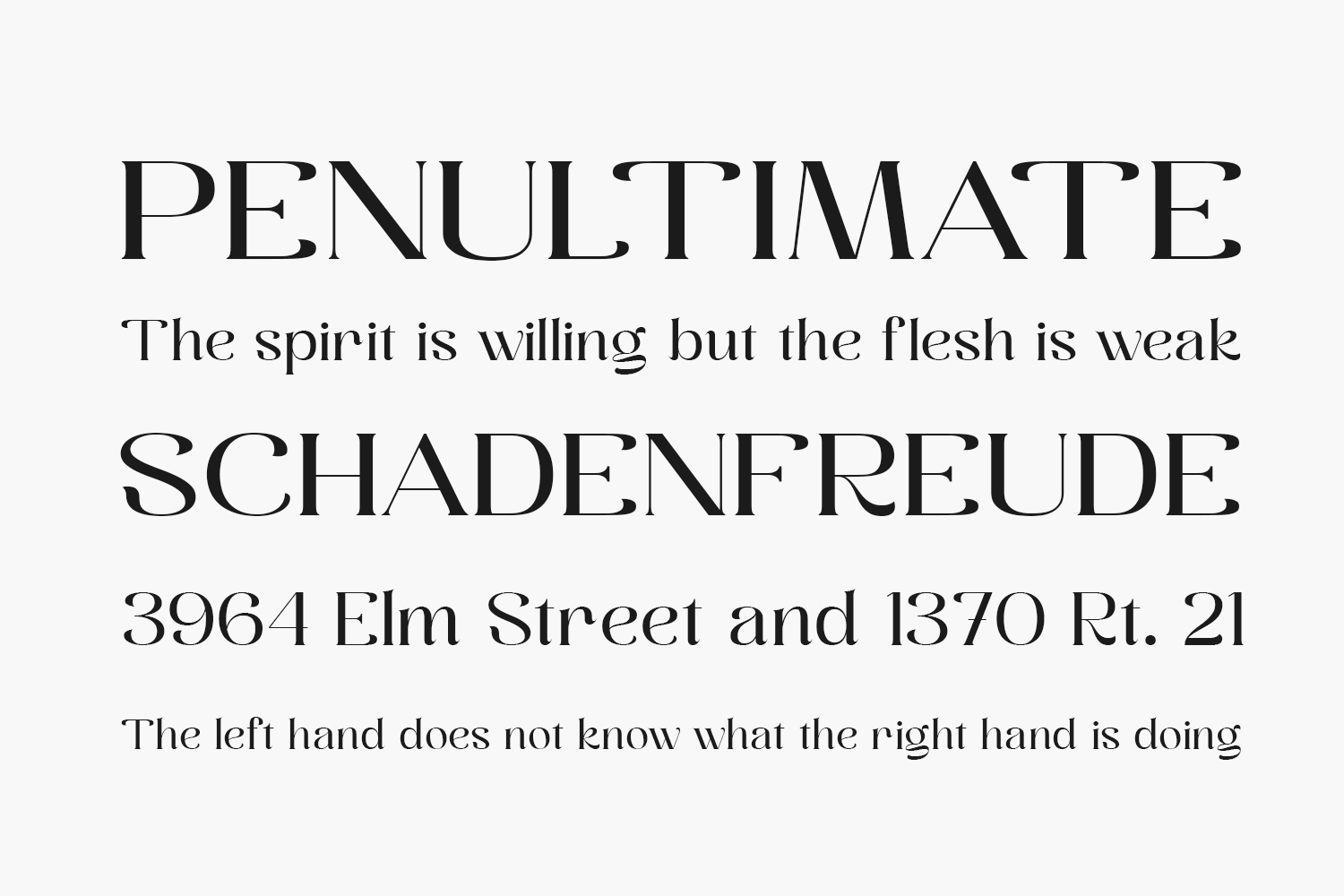
Employed Free Font is a bold monoline cursive font. Get this amazing freebie and use it to create outstanding designs. Employed Free Font is free for personal use only. Please purchase the full version for commercial use.
Designed by Prioritype Co